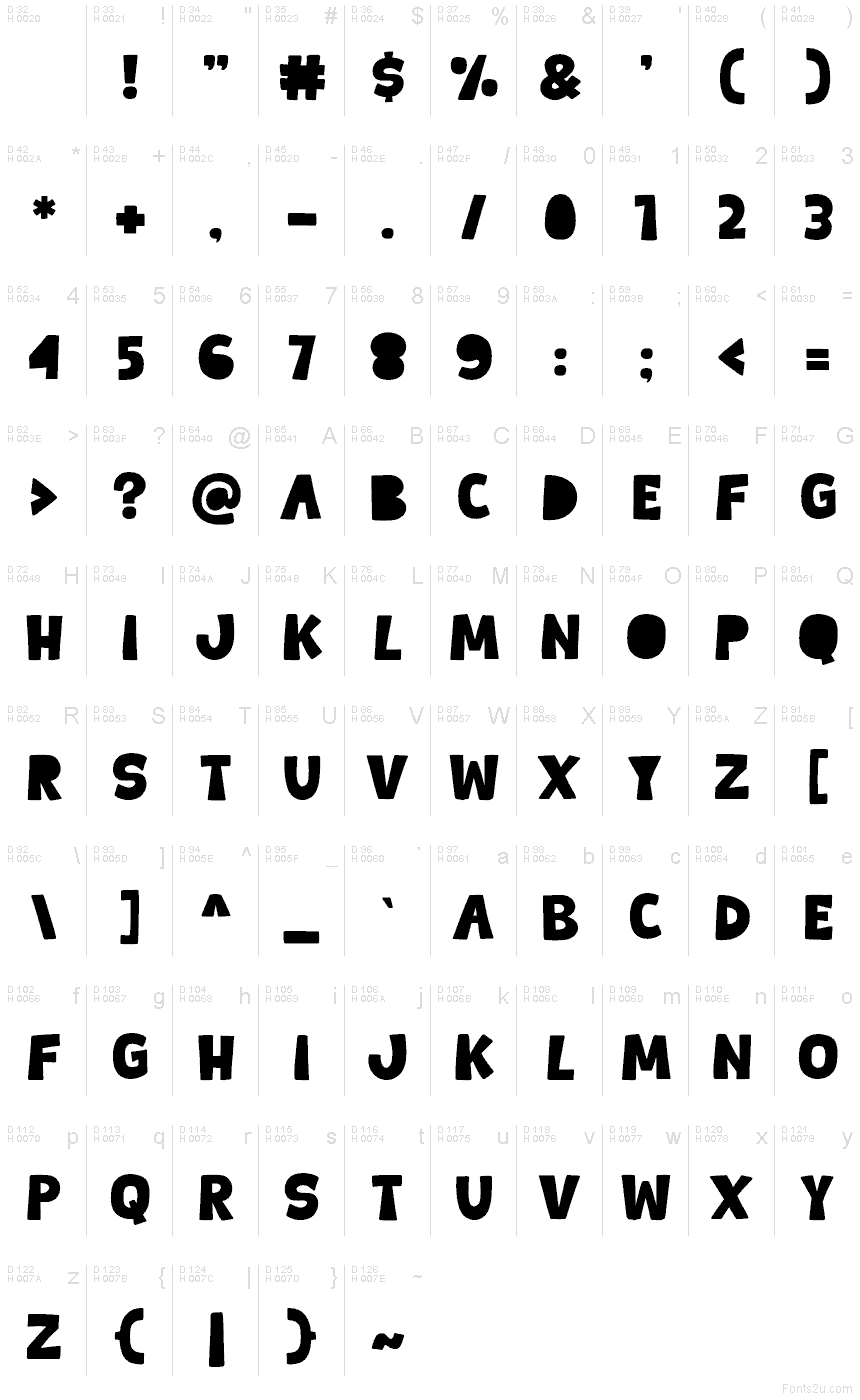
Buddy Story
Buddy Story font by Khurasan is a cartoon display typeface with bold weight, blocky shapes, and retro influences. It features quirky shapes that work together to deliver a friendly aesthetic and tone. Text presented will have a unique casual feel to it while maintaining a bold presence that stands out.
Use this font in comic books, kids books, movie covers, posters, book covers, online campaigns, social media posts banners, titles of tv shows or movies. Other projects include CD covers for albums and promotional content such as flyers and brochures.